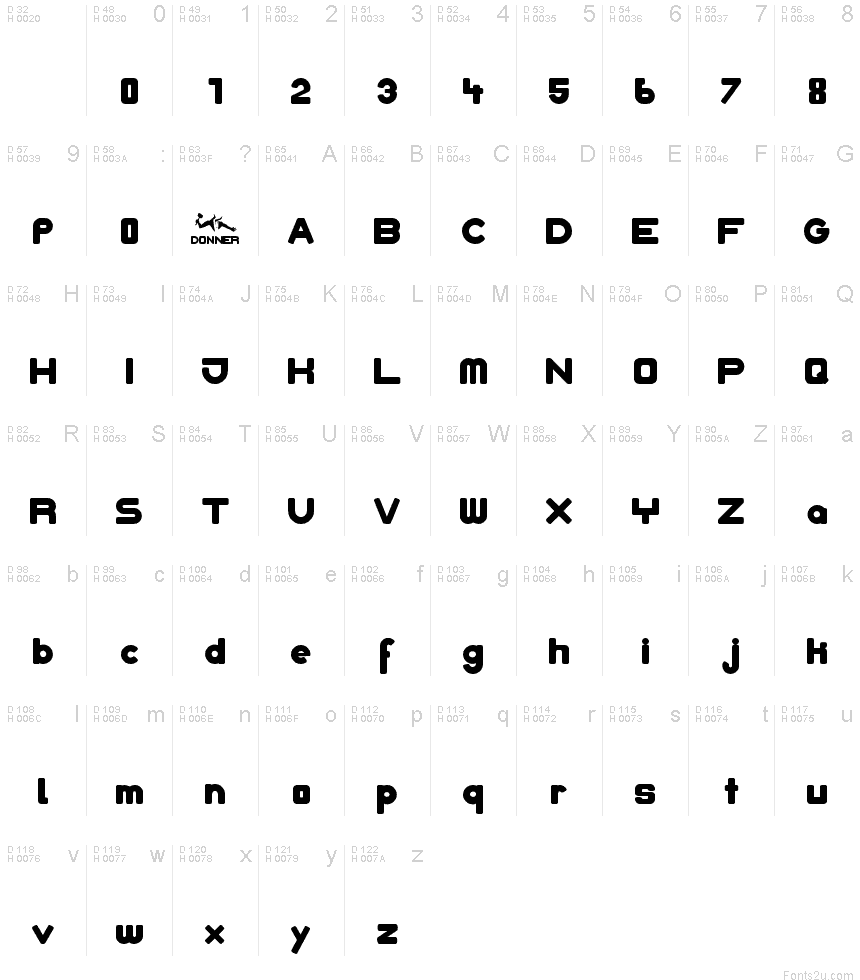
Donner Bold by Codin is a free rounded display font with a broad, weighty silhouette. Its letters mix soft outer corners with squared openings, and the changing widths keep the line lively rather than mechanically uniform. Several forms are unusually compact.
It is especially convincing for playful food packaging, where the dense shapes can turn a product name into a friendly label. The same sturdy curves suit festival posters, casual restaurant signage, and youth-oriented merchandise, linking these uses through lettering that feels substantial but approachable.